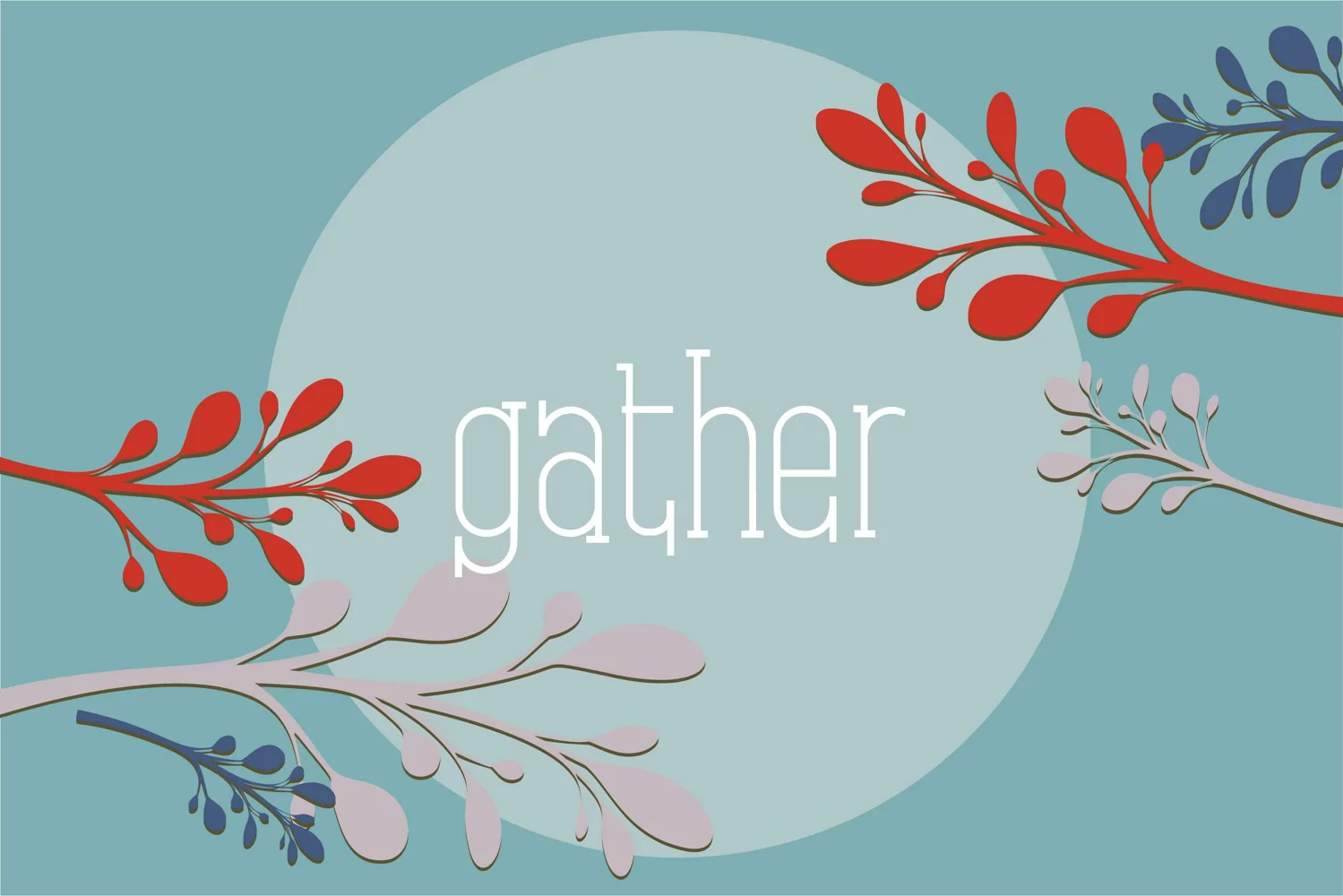
Crestview is a thin lettered and cute serif font. Masterfully designed to become a true favorite, this font has the potential to bring each of your creative ideas to the highest level! Includes regular and book.